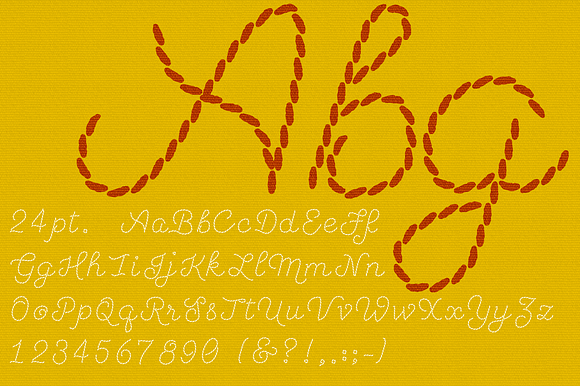
Embroidery Font- Cursive Backstitch
A font that looks like an embroidered back stitch in a decorative yet simple cursive display style. (not a machine embroidery font format) Use for sewing or craft web or print projects. You will find my other embroidery stitch fonts at these links: -